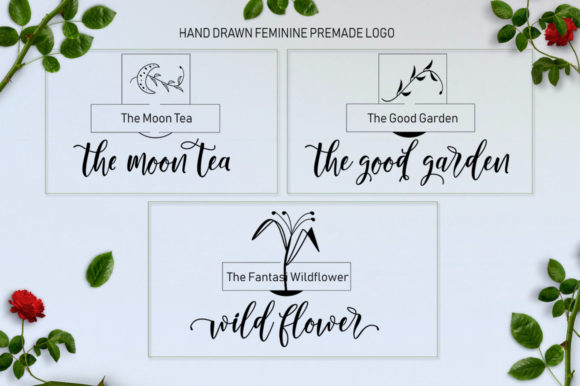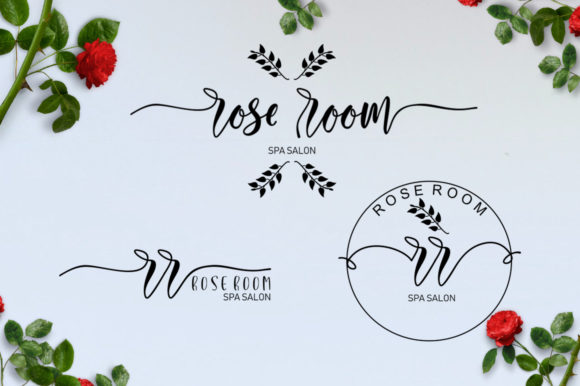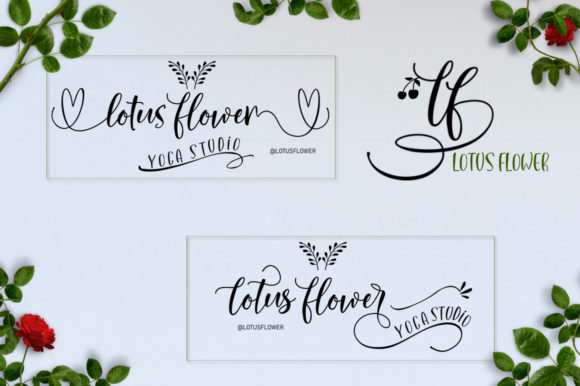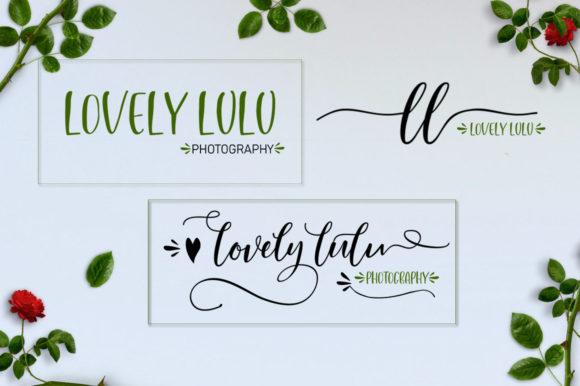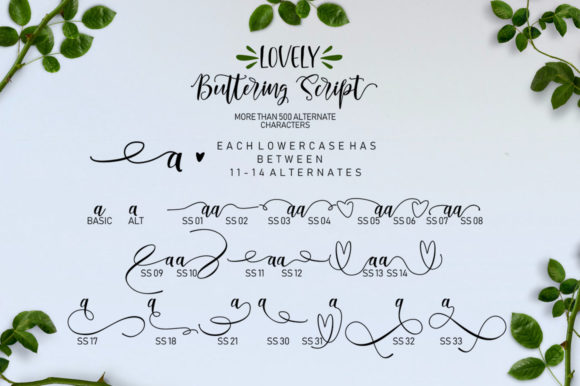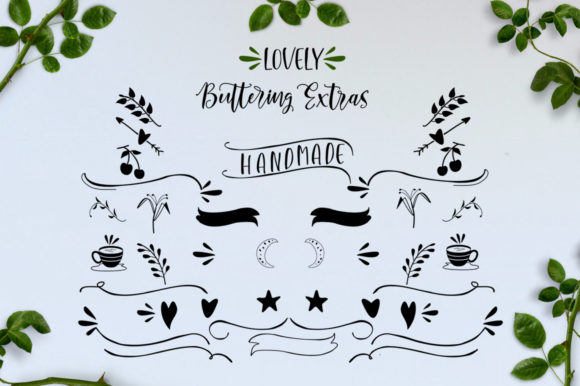
Introduction to Lovely Buttering Font
Have you ever found yourself staring at a blank page, trying to come up with the perfect design for your next creative project? The blank canvas can be daunting, but sometimes all it takes is the right tool to spark inspiration. For designers, finding the perfect font can be a game-changer. That’s where the Lovely Buttering Font comes in – a beautiful and light handwritten font that’s sure to elevate any design project.
This free download is a treasure trove for creatives, offering a high-quality design resource that’s perfect for a wide range of applications. With its transparent background, it’s easy to layer and customize to fit your vision. Whether you’re working on a branding project, a social media campaign, or a personal art piece, the Lovely Buttering Font is a valuable addition to your design toolkit.
Key Features of Lovely Buttering Font
- High-quality, professional font suitable for creative projects and design resources
- Unique, hand-drawn design with intricate details and subtle texture, perfect for adding a touch of elegance to any creative project
- Perfect for designers, artists, and creatives looking for a unique and high-quality design resource for their next project
Honest Review: Lovely Buttering Font
I recently had the chance to try out the Lovely Buttering Font, and I must say, it’s a lovely addition to any design project. The font is available for free download, which is a definite plus for designers on a budget.
One of the standout features of this font is its high-quality design. The characters are smooth and well-crafted, making it perfect for any creative project that requires a touch of elegance.
- High-quality design and smooth characters ✨
- Transparent background, allowing for easy customization
- May not be suitable for projects that require a bold or dramatic font style ⚠️
- Limited character set, which may not be ideal for longer texts
Overall, I’m impressed with the Lovely Buttering Font. It’s a solid choice for designers looking for a high-quality, elegant font for their creative project. Just keep in mind its limitations, and you’ll be golden.
To get the most out of the Lovely Buttering Font, use it with a transparent background to create a high-quality design. This font is perfect for creative projects that require a unique and elegant touch.
The Lovely Buttering Font is commonly used for wedding invitations, branding materials, and social media graphics. Its high-quality design and transparent background make it a great resource for any creative project.
Alternatives to Lovely Buttering Font
Pacifico Font is a high-quality, elegant script font that’s perfect for creative projects, such as wedding invitations, branding, and advertising. It features a transparent background and is available for free download. Pacifico Font is ideal for designers who want to add a touch of sophistication to their designs.
When to use: Pacifico Font is suitable for formal and elegant designs, such as wedding invitations, business cards, and packaging.
Comparison to Lovely Buttering Font: Pacifico Font has a more elegant and refined look compared to Lovely Buttering Font, which has a more playful and whimsical feel.
Great Vibes Font is a beautiful, handwritten font that’s perfect for creative projects, such as posters, flyers, and social media graphics. It features a transparent background and is available for free download. Great Vibes Font is ideal for designers who want to add a touch of personality to their designs.
When to use: Great Vibes Font is suitable for informal and playful designs, such as posters, flyers, and social media graphics.
Comparison to Lovely Buttering Font: Great Vibes Font has a more casual and relaxed feel compared to Lovely Buttering Font, which has a more polished and refined look.
Is the Lovely Buttering Font suitable for high-resolution printing?
Yes, the Lovely Buttering Font is designed to be high-quality and suitable for printing. It features a transparent background, making it easy to use with any design element. The font is also optimized for high-resolution printing, ensuring that it looks crisp and clear on any printed material.